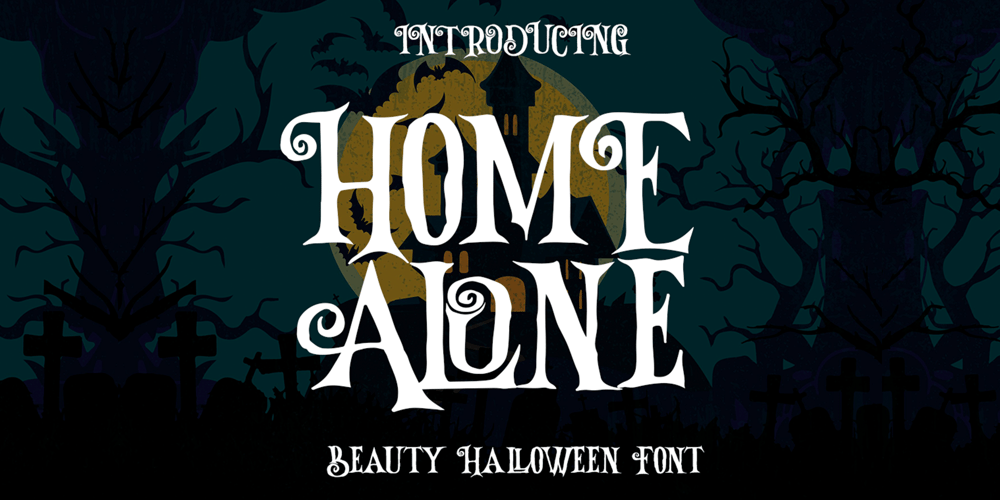
Home Alone Font Family was designed by Edhi Prayitno and published by Absonstype. Home Alone contains 1 styles and family package options. Home Alone is the horror display typeface with high contrast all caps style looks and feel nice balanced.Honestly it works perfectly for headlines, logos, posters, packaging, T-shirts and much more, related Halloween.Font Features : Character set A-Z in All Caps Style Ligatures Numerals & Punctuation Accented Characters Multiple Languages Supported Recommended to use in Adobe Illustrator or Adobe Photoshop with opentype feature.Ligatures feature is default setting in Adobe Illustrator or Adobe Photoshop in Uppercase character. So when you want not to use the ligatures.Open glyphs panel : In Adobe Photoshop choose tool Window >> Character and then please click fi symbol In Adobe Illustrator choose tool Window >> Type >> Open Type and then please click fi symbol If you have questions, just send me a message and I’m glad to help.Have a great day,Absonstype